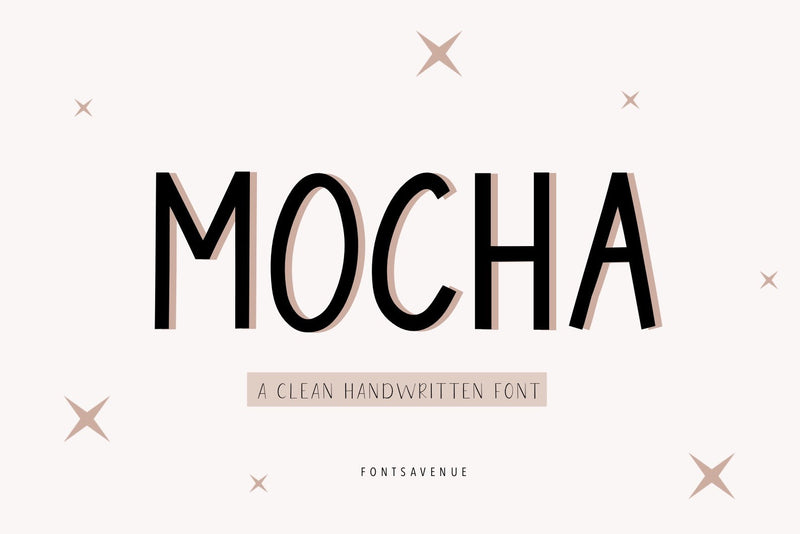
Mocha | Uppercase Sans Serif Font
Mocha is a modern, clean and stylish handwritten font, perfect for invitations, logo design, branding, product packaging, quotes and much more!
Features
- Uppercase letters
- Accented characters